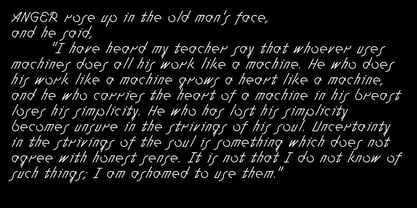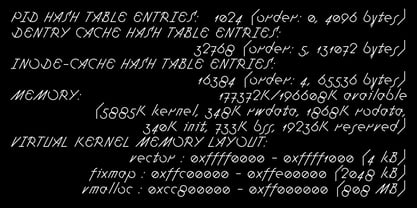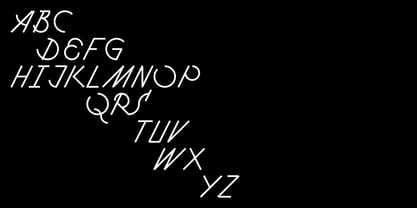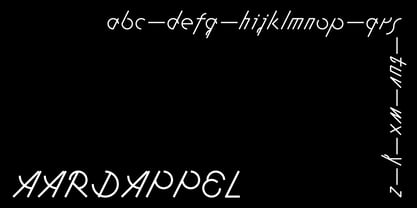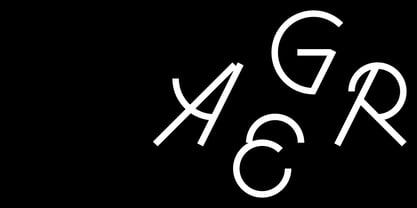
Aardappel
von ABSTRKT
Die Schriftfamilie Aardappel wurde von Abstrkt Design Team entworfen und von ABSTRKT veröffentlicht. Aardappel enthält 1 Stile. Mehr über diese Familie
Aardappel is a geometric monolinear script typeface built on a grid. Within the strict limitations of its geometric elements and grid anchors, Aardappel seeks to arrange its elements freely and expressively, following handwritten patterns and cherishing playful arrangements in order to avoid being repetitive. A patchy bricolage, Aardappel is an attempt to make geometry flow freely.
Designer: Abstrkt Design Team
Foundry: ABSTRKT